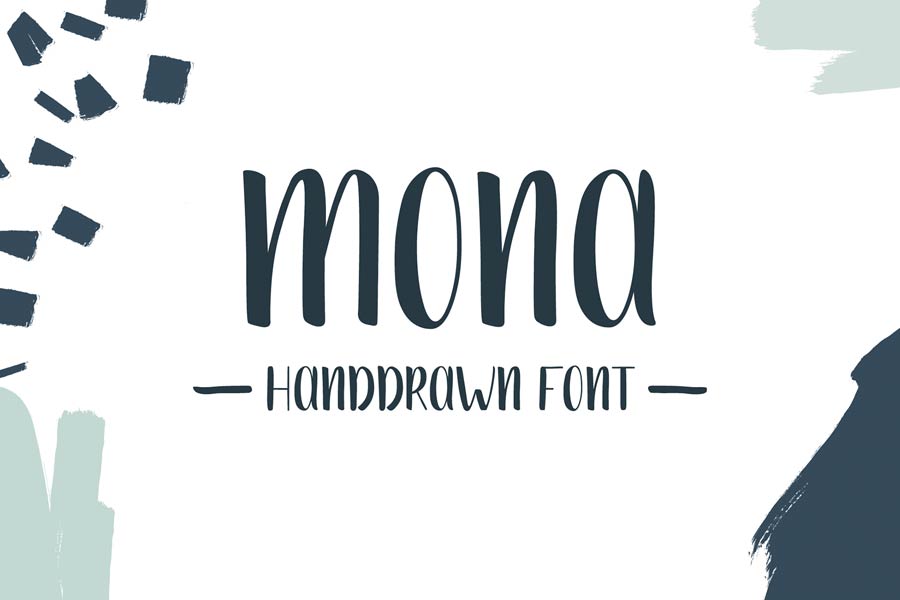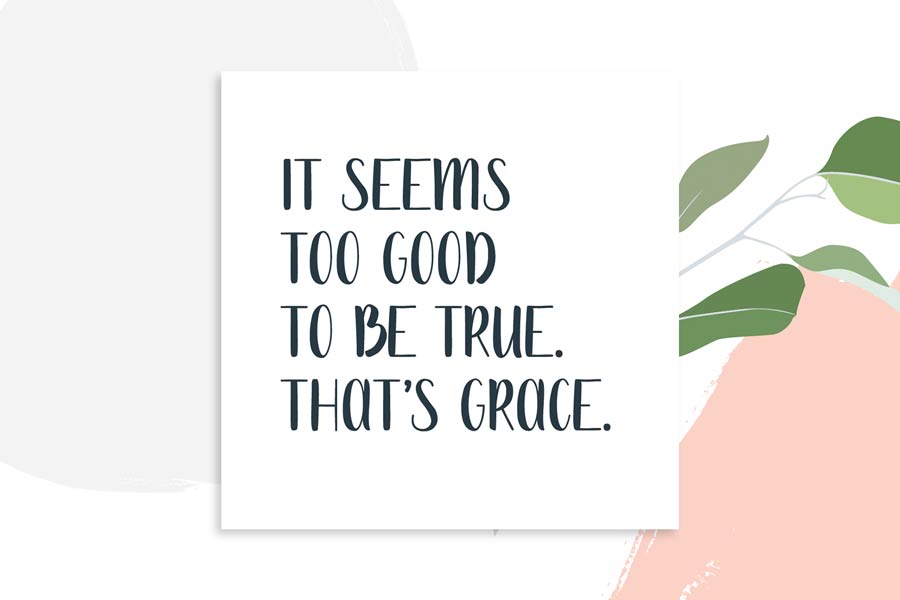
Mona is a free hand drawn brush uppercase font. It has contrasting thin and bold lines that contributes to the dynamic-ness of the design. I like the way the designer replaces the usual capital “A” with lowercase “a” to soften the overall design of the font set.